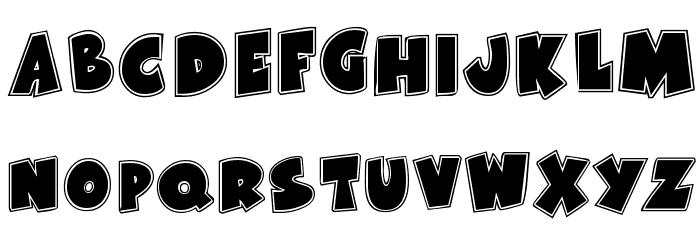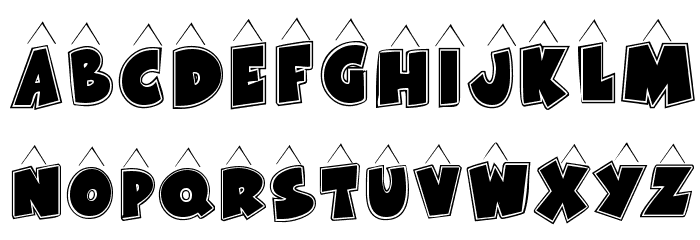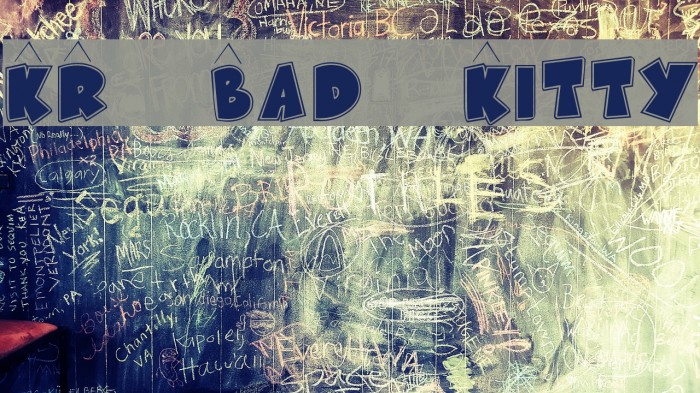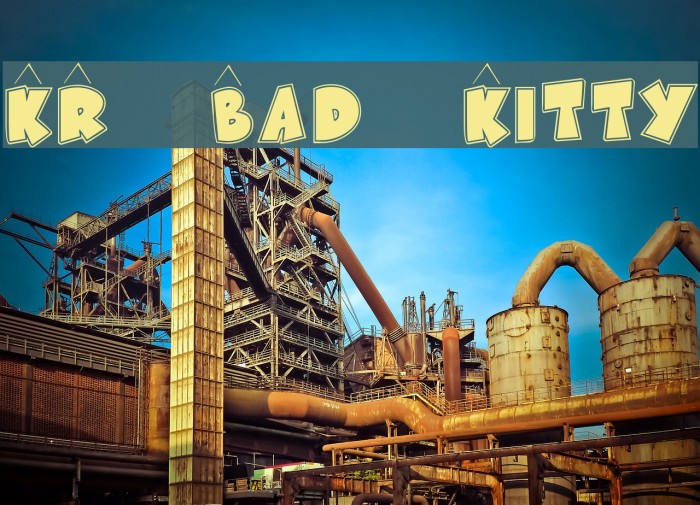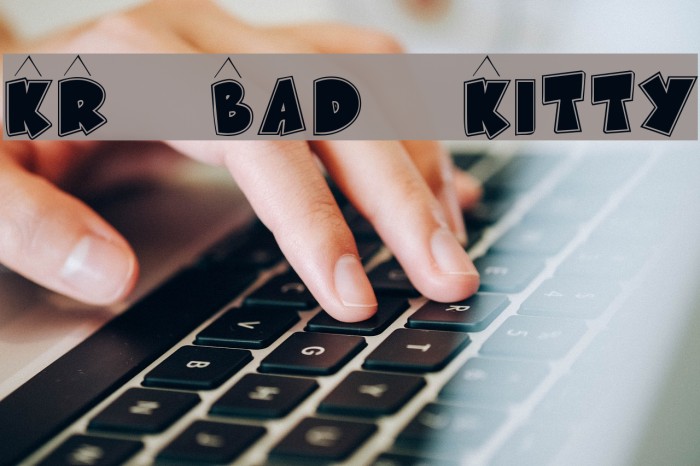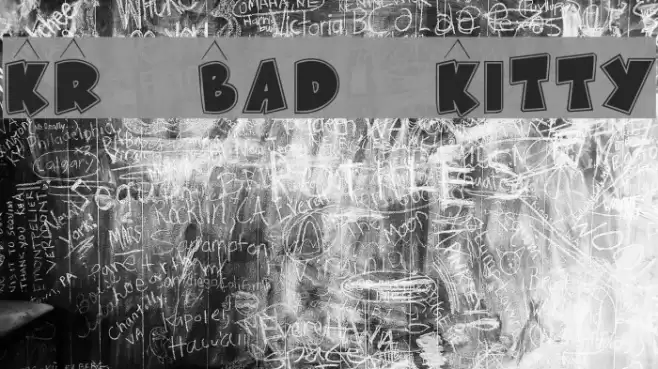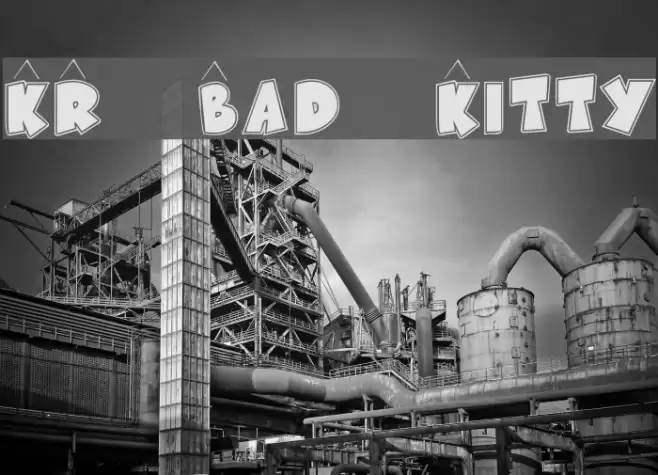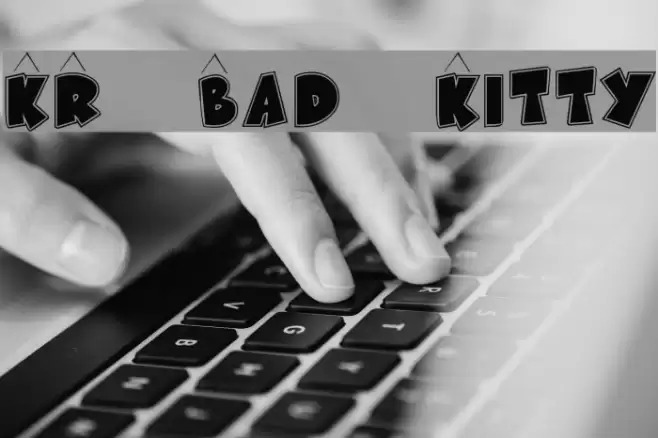
KR Bad Kitty Font
This playful and bold font features a unique, cartoonish style with thick, heavy strokes and a distinct outline that gives each character a three-dimensional appearance. The letters are designed with a whimsical touch, incorporating sharp angles and exaggerated forms that convey a sense of fun and creativity. The uppercase and lowercase characters maintain a consistent style, ensuring a cohesive look across different text applications. The font's boldness and decorative elements make it stand out, making it ideal for projects that require a lively and engaging visual impact.
A bold, cartoonish font with thick strokes and playful outlines.
- Proposed Projects: Ideal for children's books, comic strips, playful branding, and event posters.
- Overall Style: Playful, Cartoonish